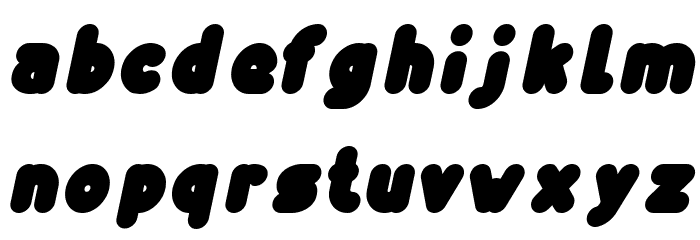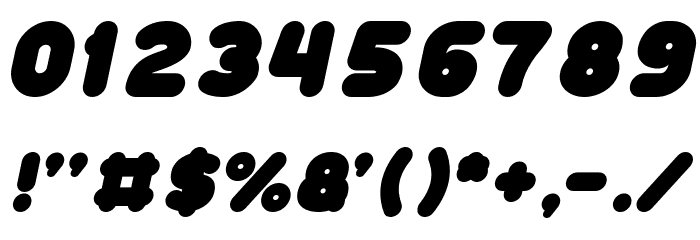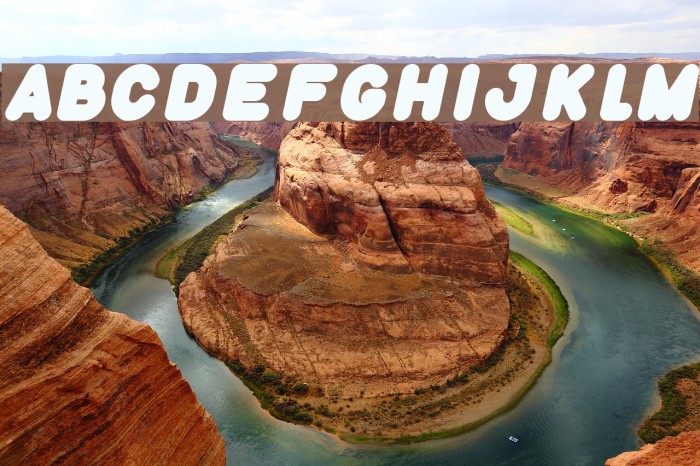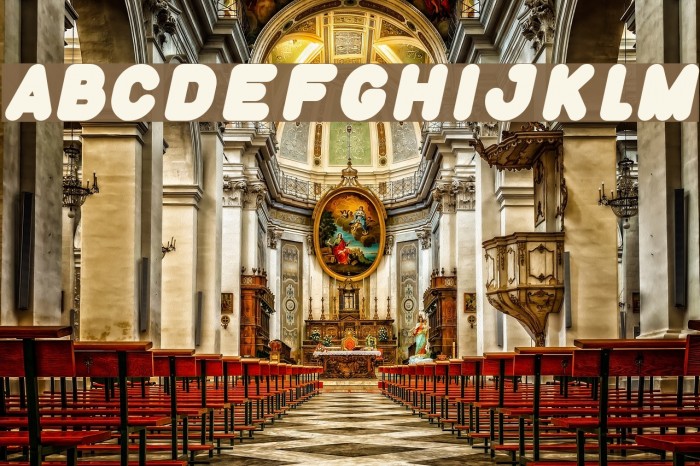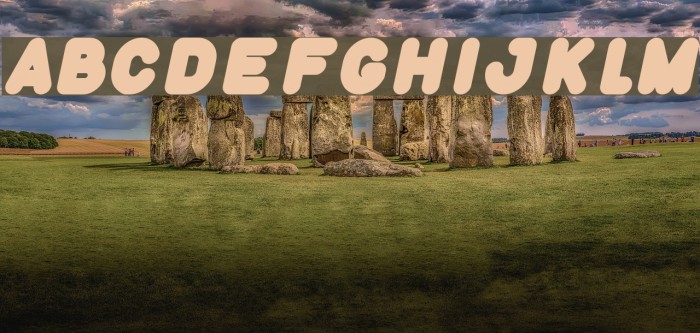
Funny and Cute Italic Font
This playful and bold font features rounded, bubbly characters that exude a sense of fun and whimsy. The letters are thick and slightly italicized, giving them a dynamic and lively appearance. The font maintains a consistent weight throughout, with smooth curves and a friendly demeanor. Its boldness ensures high readability, making it suitable for eye-catching designs. The numbers and special characters follow the same playful style, adding to the font's cohesive look. Overall, this font is perfect for projects that require a cheerful and approachable aesthetic.
A playful, bold, and slightly italicized font with rounded, bubbly characters.
- Proposed Projects: Ideal for children's books, playful branding, party invitations, and fun social media graphics.
- Overall Style: Playful